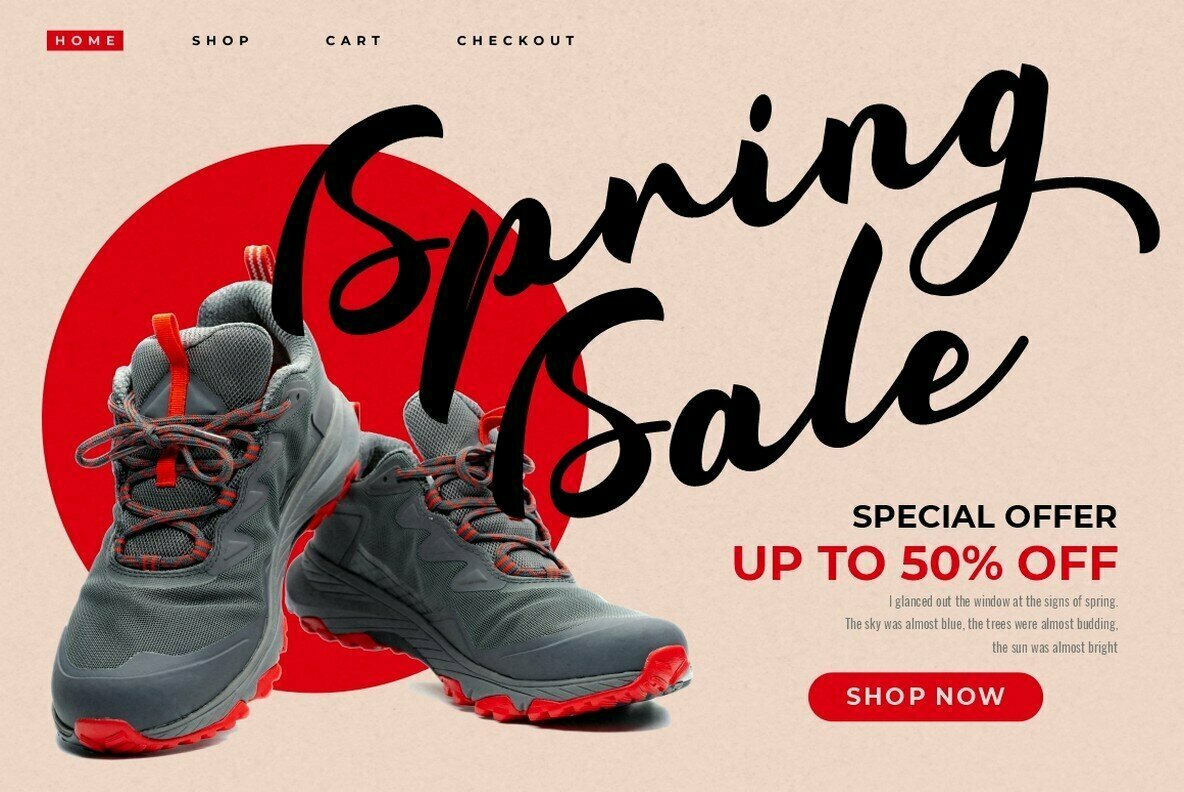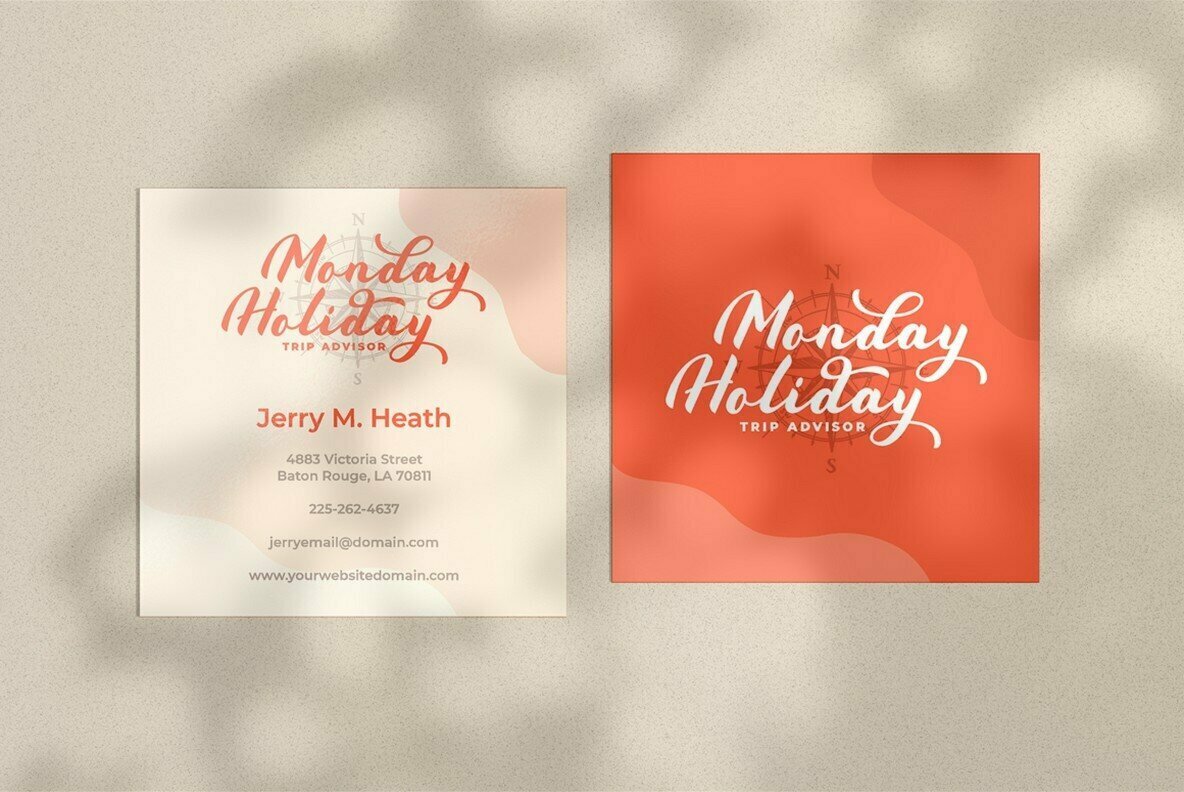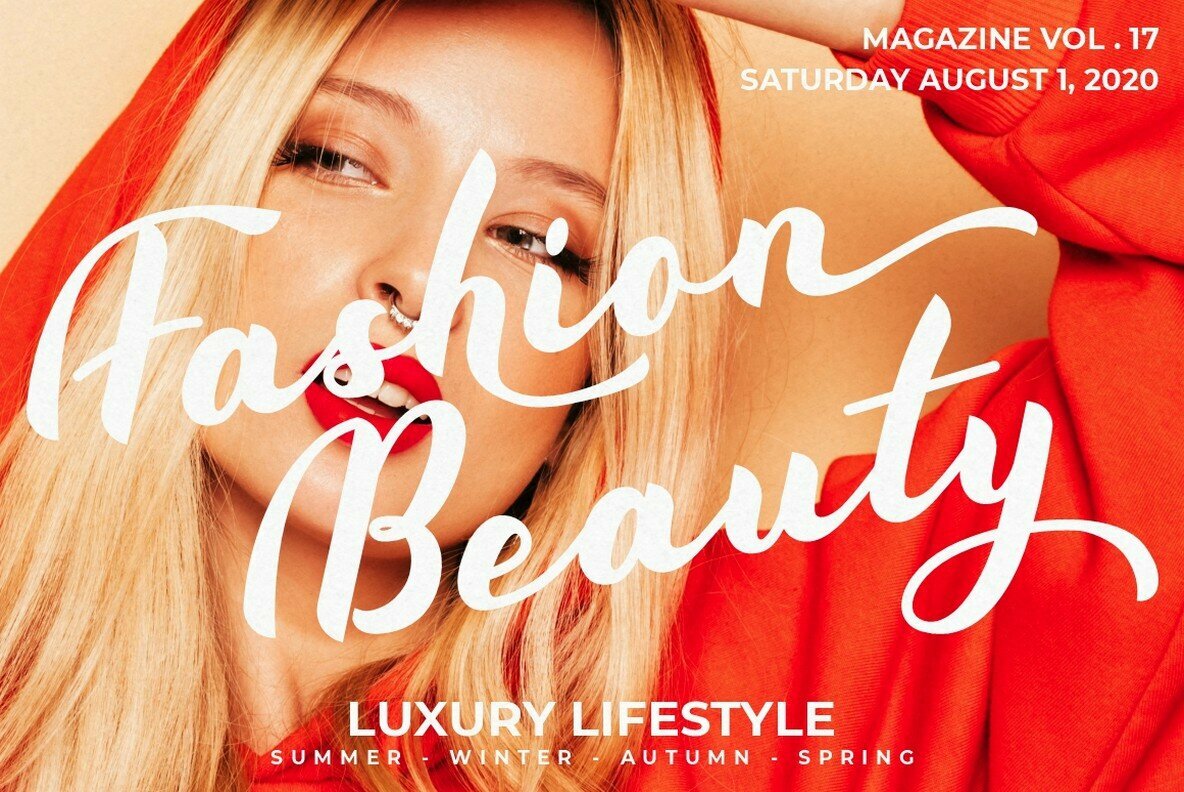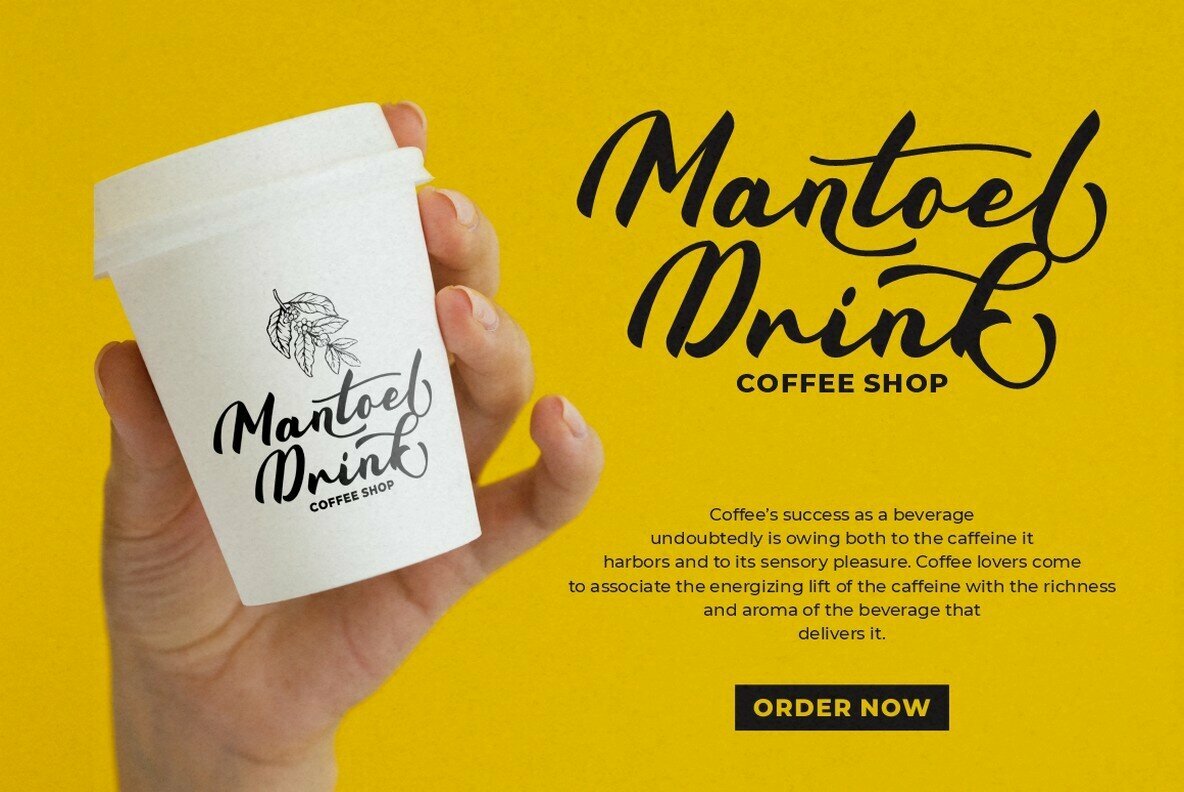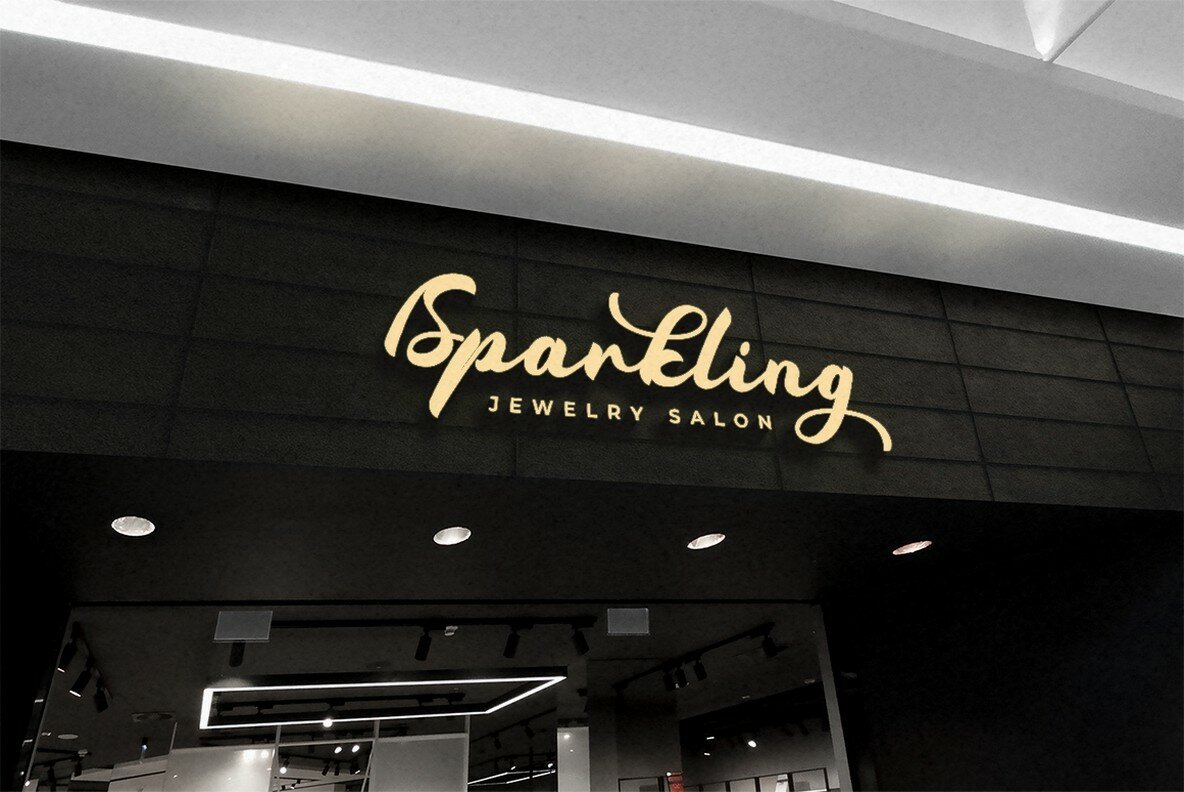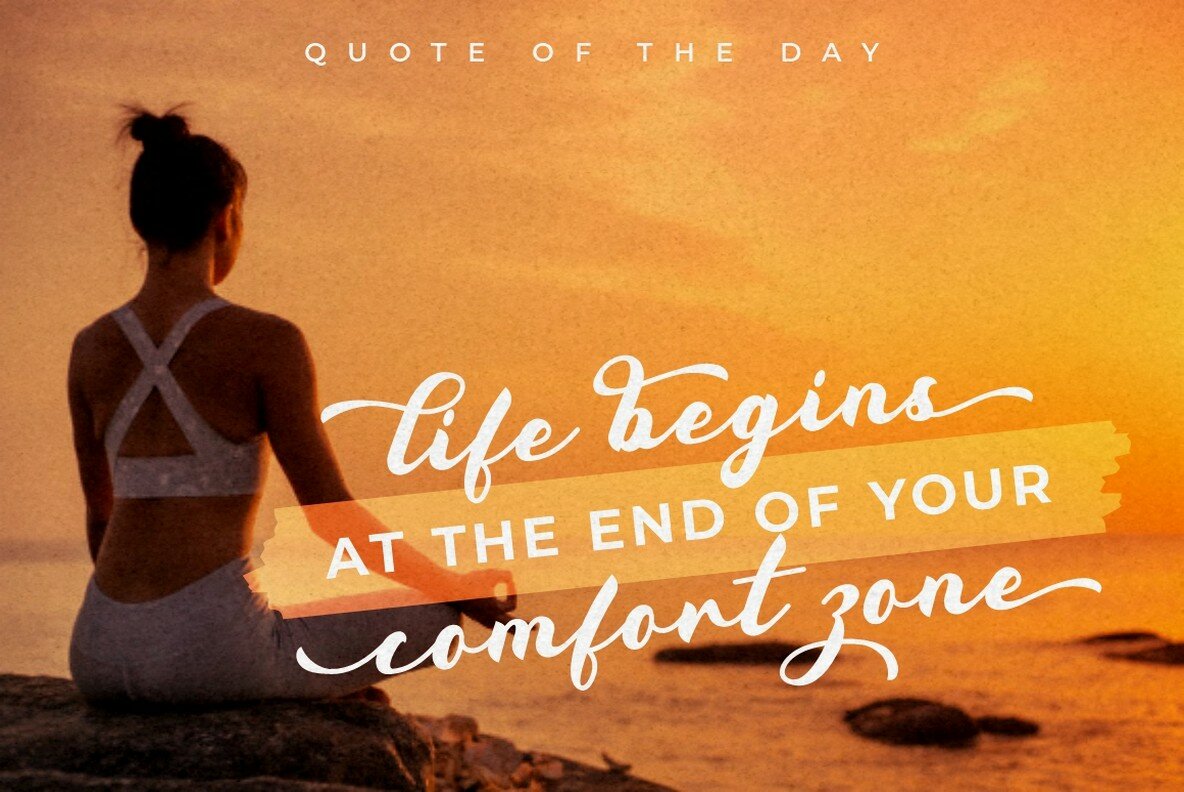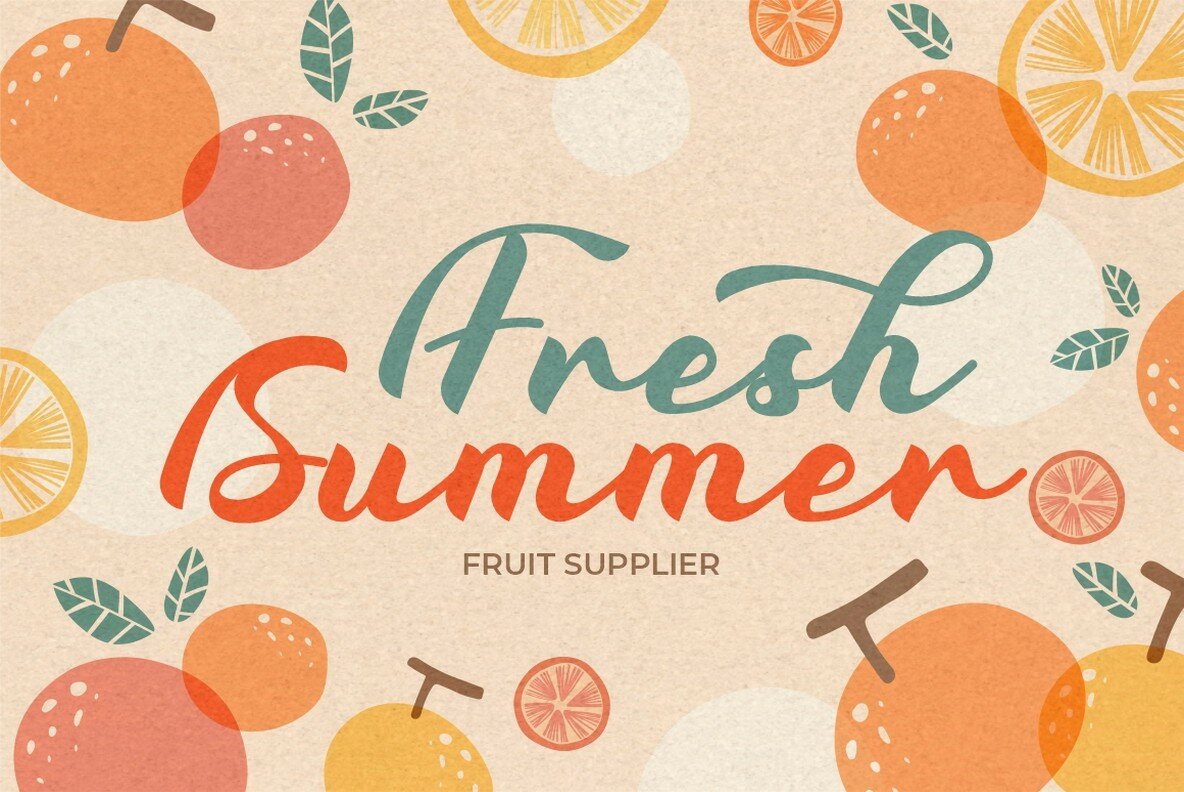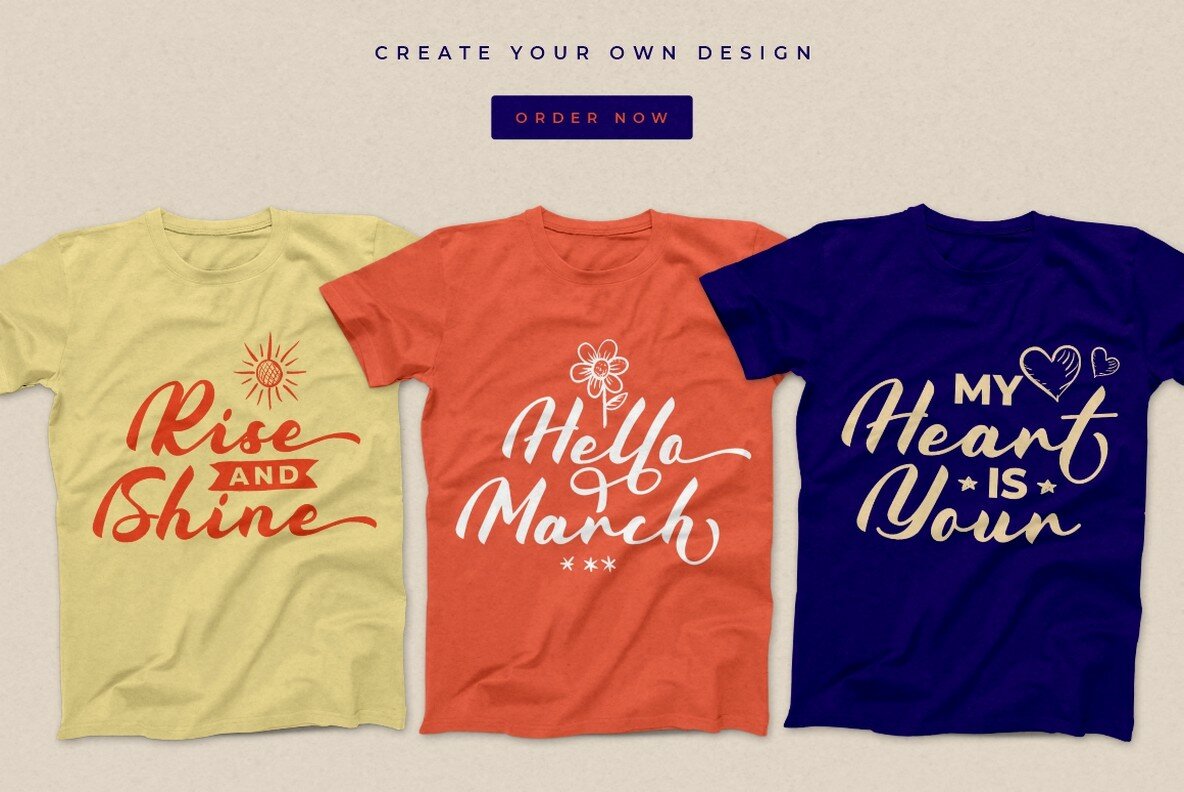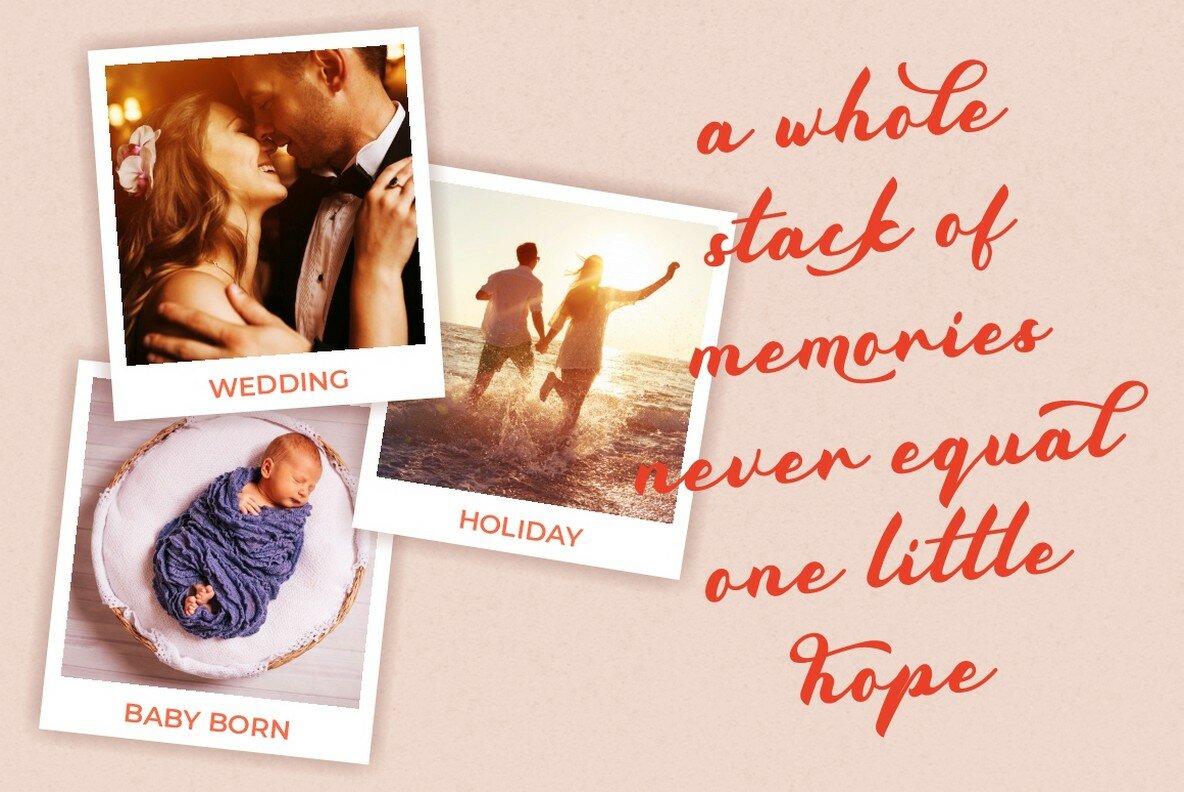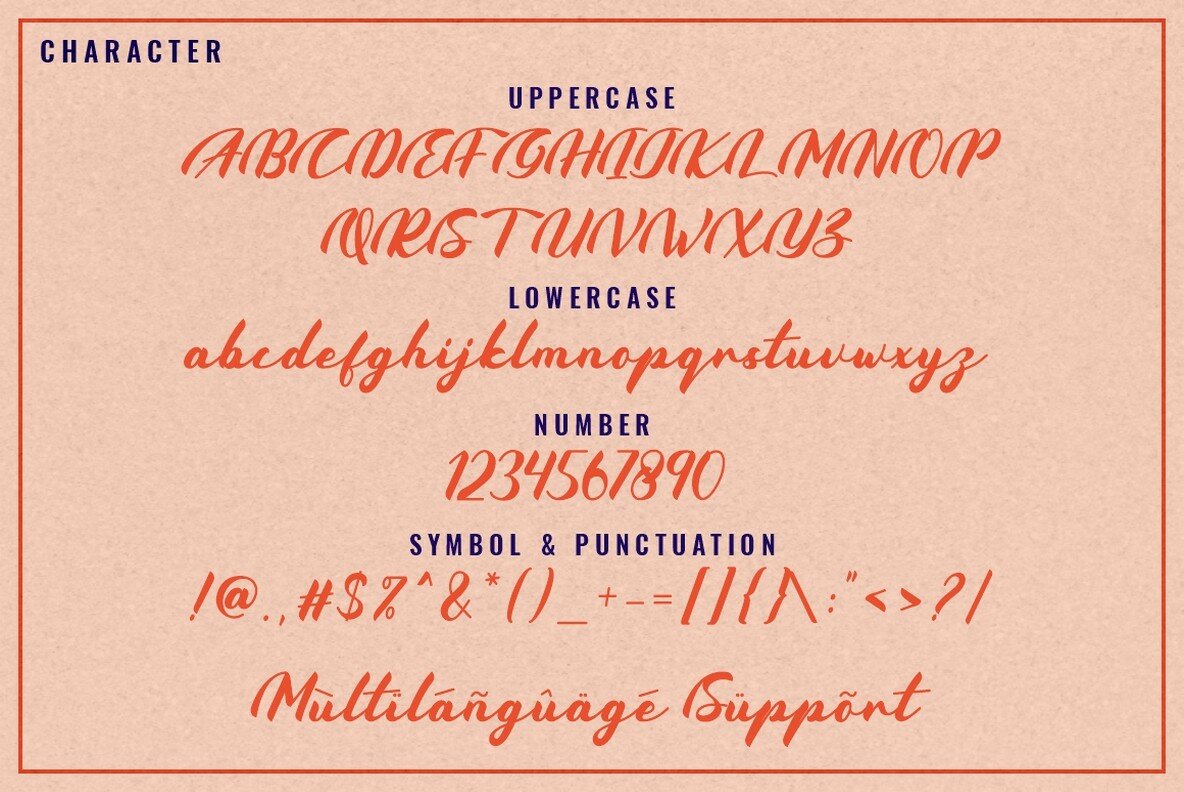
Coldcoast Font
Coldcoast
The Coldcoast font presents an invigorating approach to handwritten typography, bridging streetwear culture with hand lettering finesse. It's an exemplary choice for creative endeavors ranging from logos to social media graphics.Coldcoast: Modern Handwritten Script for Versatile Design